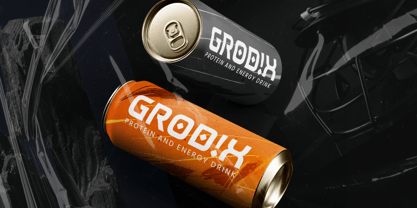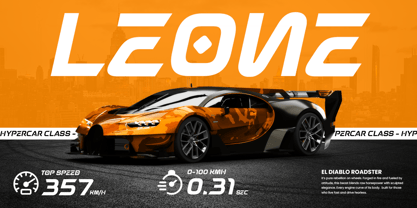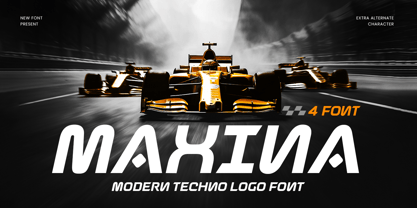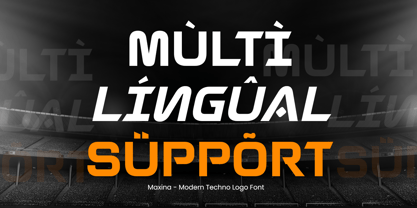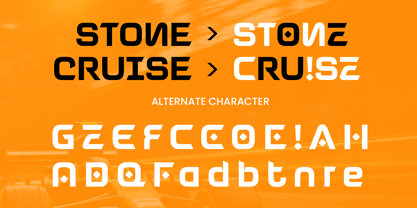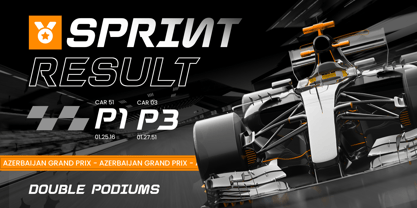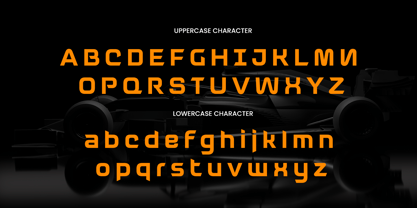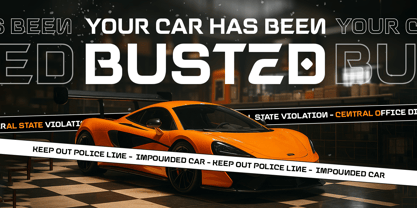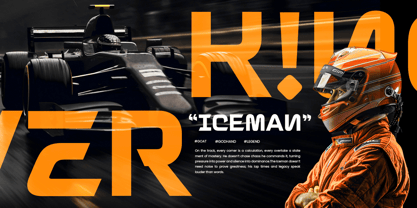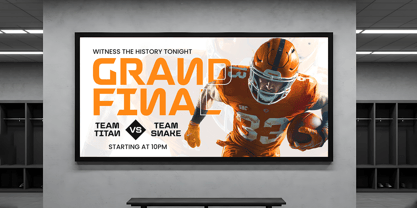
MAXINA – Modern Techno Logo Font
MAXINA is a modern techno logo font built for the future of digital design. With sharp geometry, precise construction, and a sleek technological aesthetic, MAXINA delivers a powerful visual identity perfect for brands that want to look bold, innovative, and forward-thinking.
Designed with futuristic inspiration and engineered letterforms, MAXINA brings a strong presence to logos, branding systems, tech startups, gaming titles, and digital interfaces. Its clean structure and techno-inspired shapes create a distinctive style that stands out in modern design environments while maintaining excellent readability.
Whether used for high-tech branding, esports visuals, UI/UX headlines, posters, or digital advertising, MAXINA provides the perfect balance between futuristic character and professional clarity. It’s a modern techno font made to power the next generation of visual identities.
MAXINA – Modern Techno Logo Font Features
Futuristic techno-inspired character design
Clean geometric shapes for modern tech branding
Ideal for logos, gaming titles, and digital interfaces
Includes uppercase, lowercase, numerals, and punctuation
Perfect for branding, posters, and UI design
OpenType features for creative flexibility
Works well for social media, advertising, and digital projects
Multilingual Support